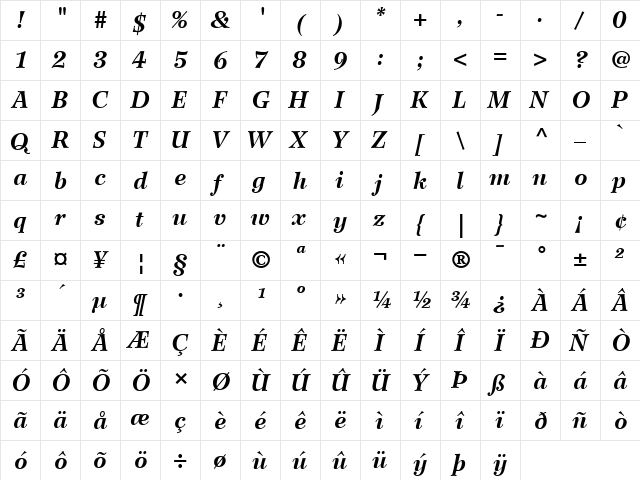
Wilke76 BoldItalic
Design Context for Wilke76 Typeface
Wilke76 is a composed and adaptable typeface that performs quietly and consistently across a wide range of design contexts. The slanted form adds forward momentum and visual energy. The heavy weight commands attention and anchors typographic hierarchies.
Pro Tip: Try Wilke76 for annotation and caption copy alongside an upright companion — the contrast in angle creates a dynamic but ordered typographic system.